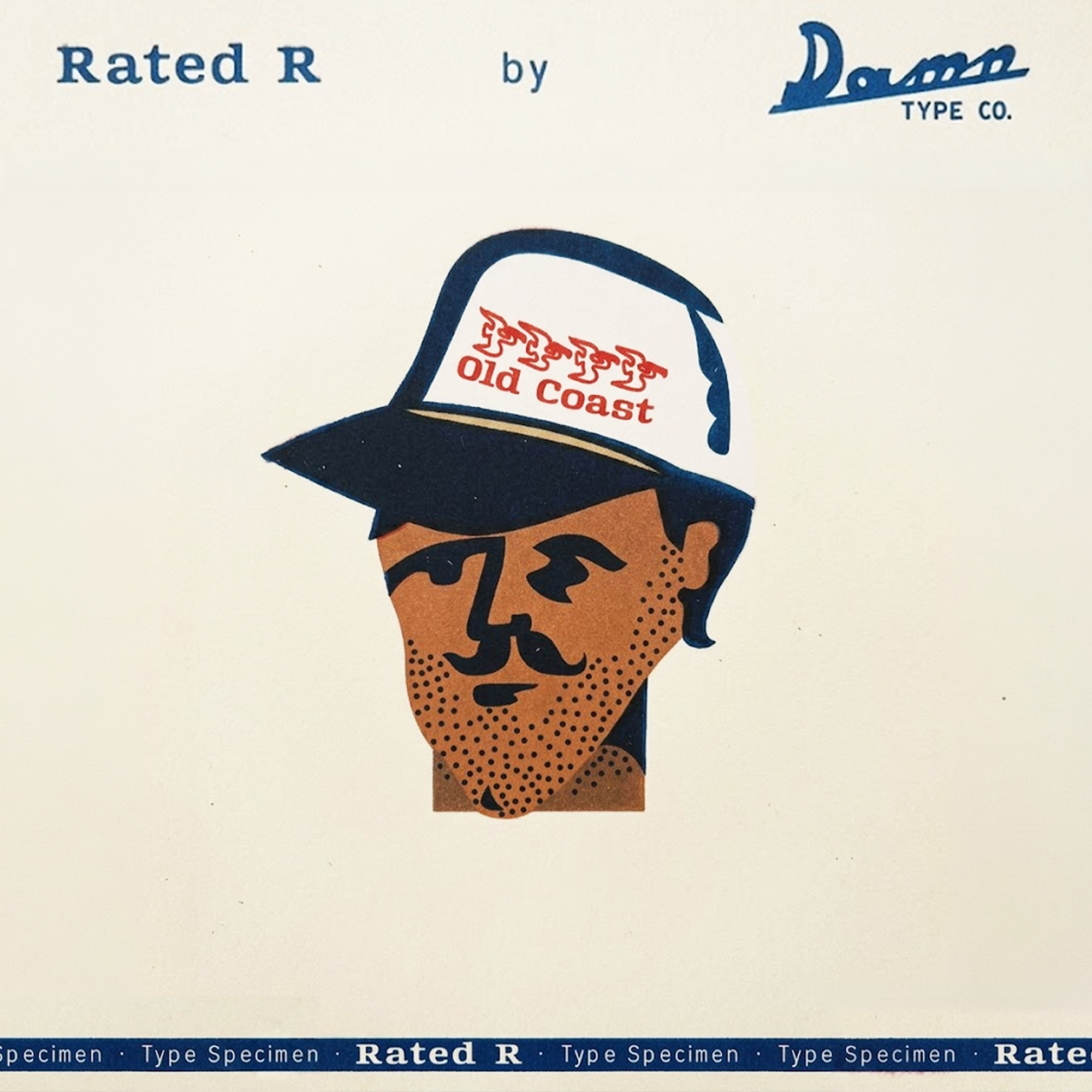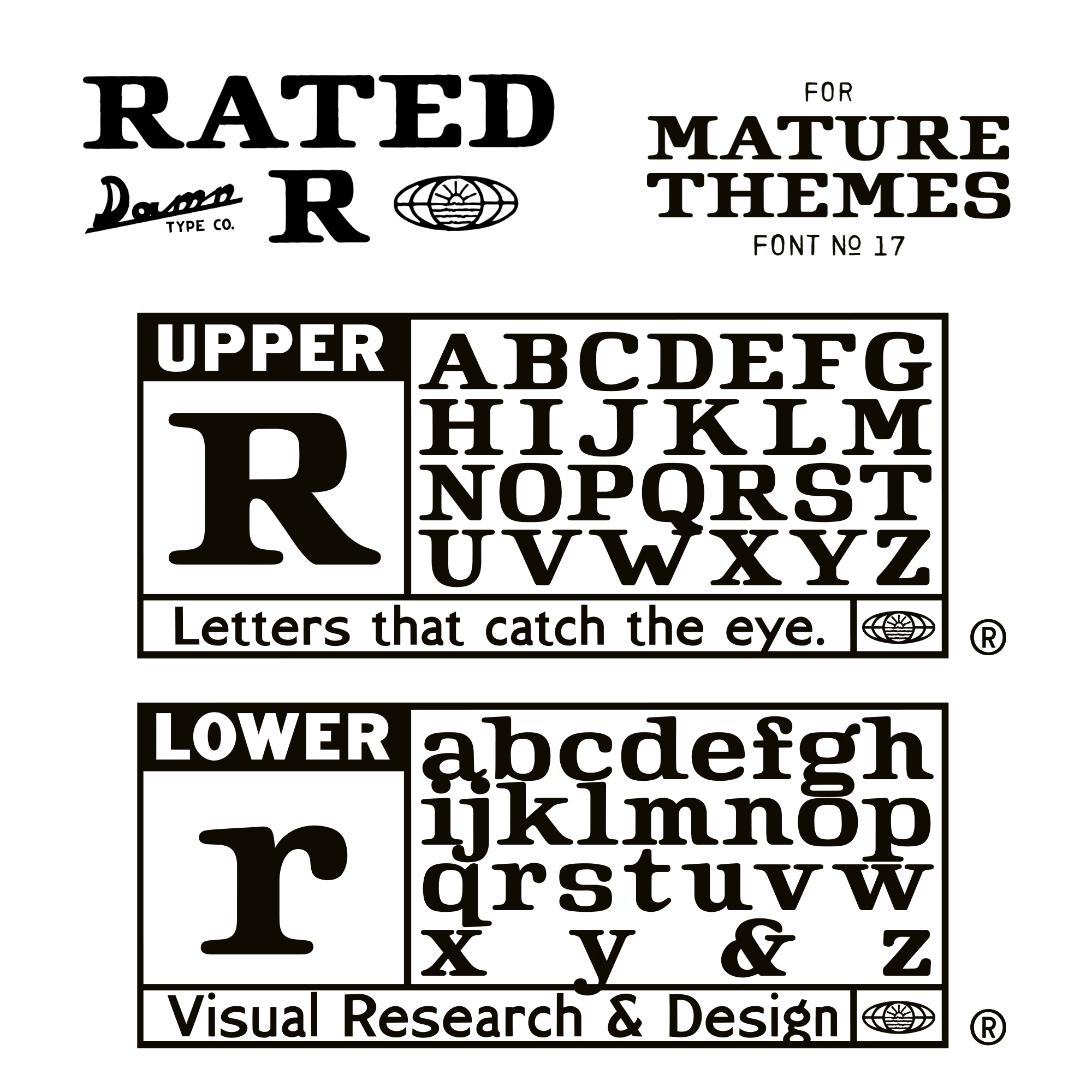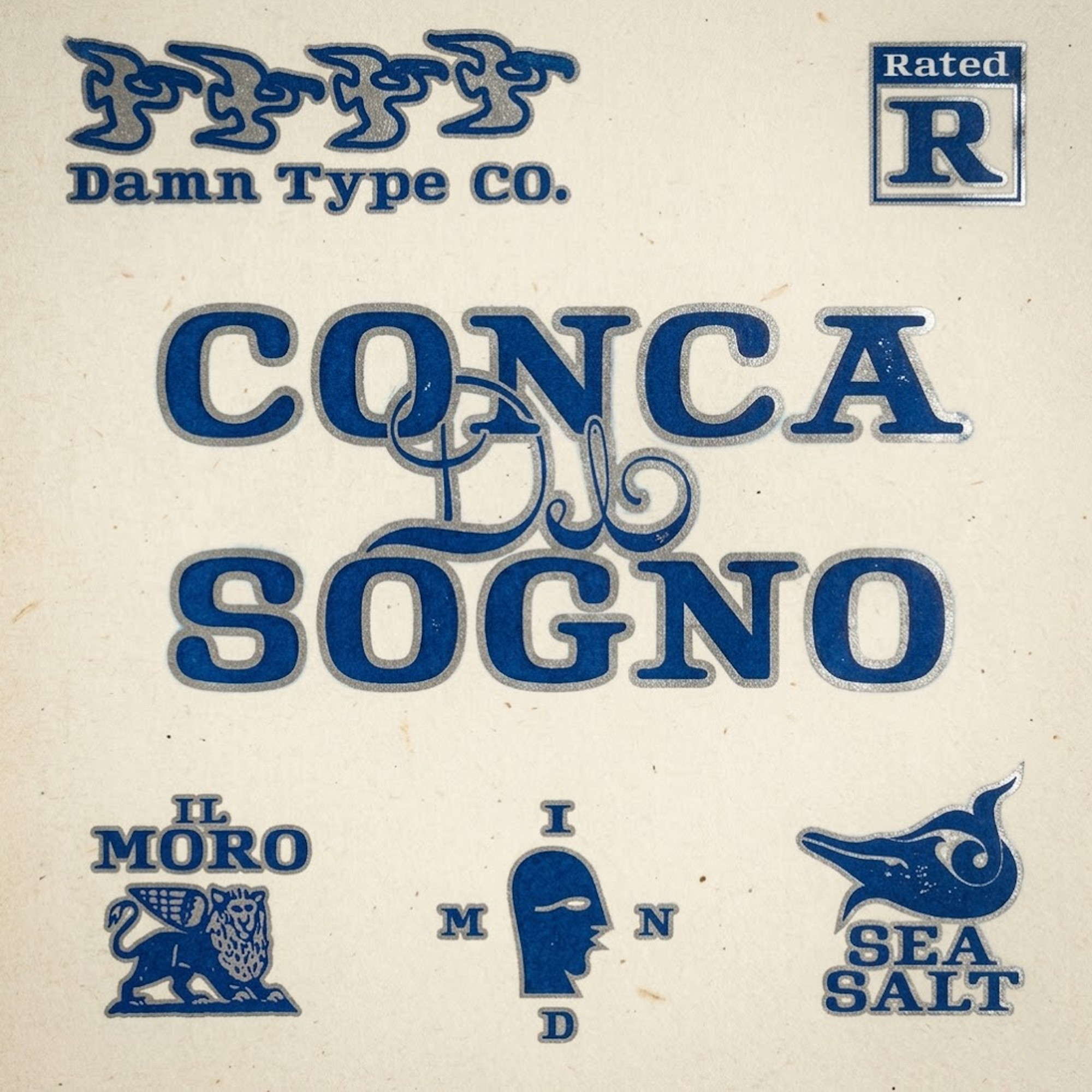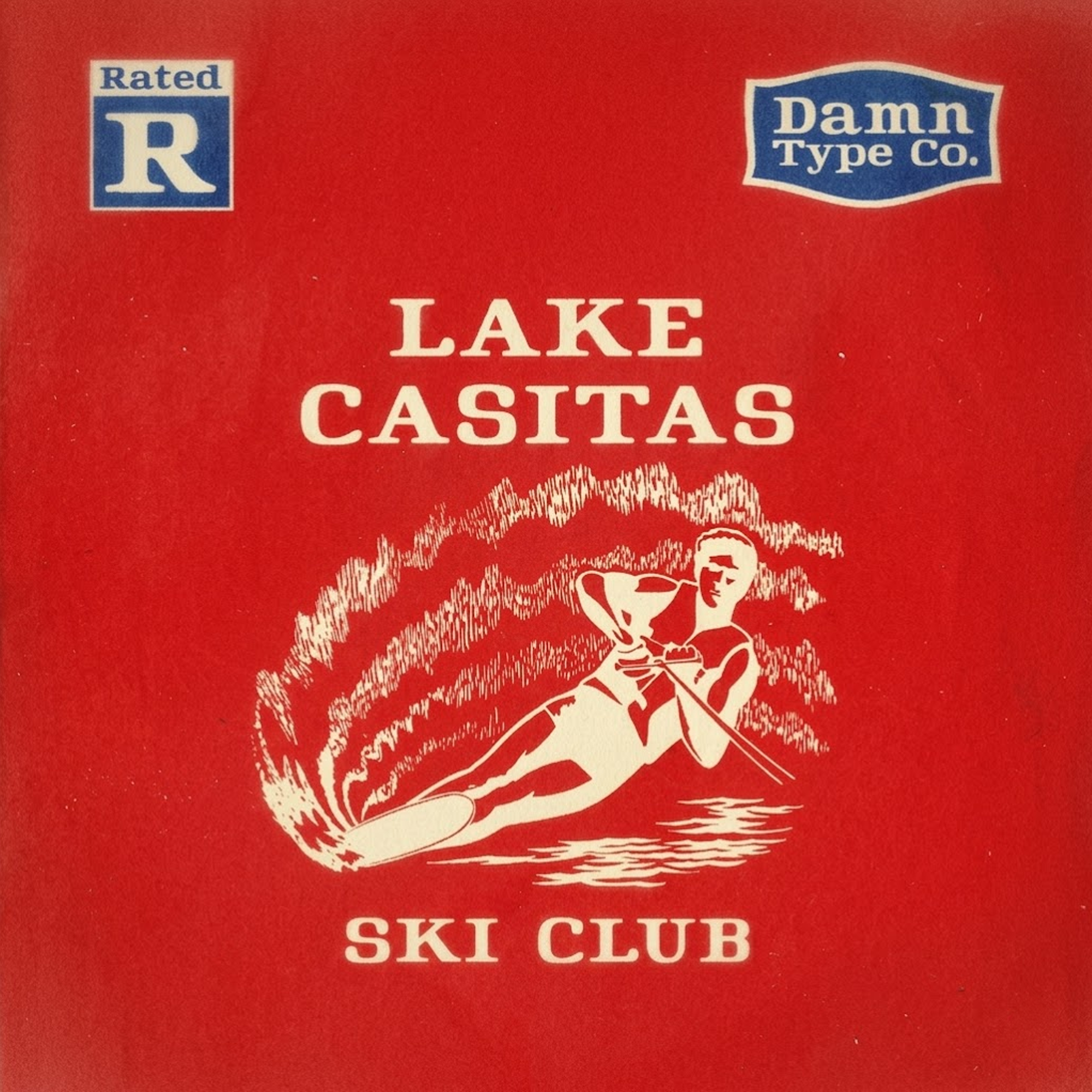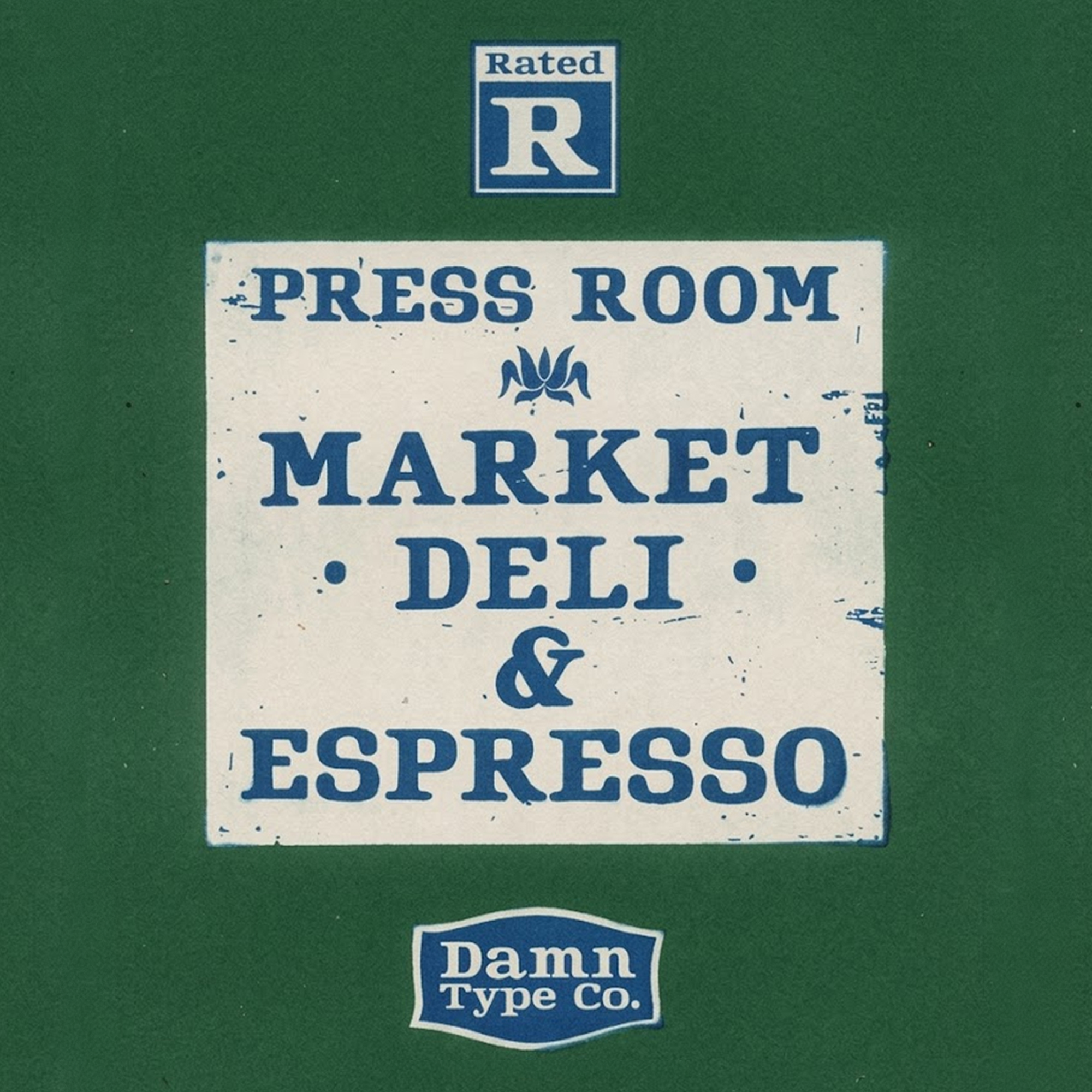
Rated R
Rated R is a functional serif font inspired by MPAA film rating card letters. They only flash for a moment, but have always caught my eye.
This font leans into sturdy proportions, modest contrast, and has a slightly utilitarian warmth, like it was built for information first yet remains playful. It’s direct and legible, softened by subtle curves and a human touch that keep it feeling warm like motion pictures. Rated R feels familiar in a hard-to-place way, like something you’ve seen your whole life without ever noticing. And despite its name, it’s fun for the whole family!